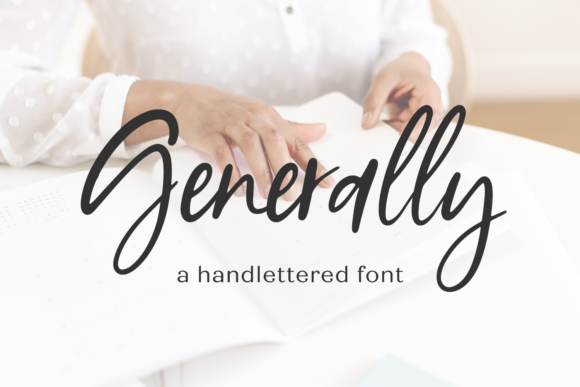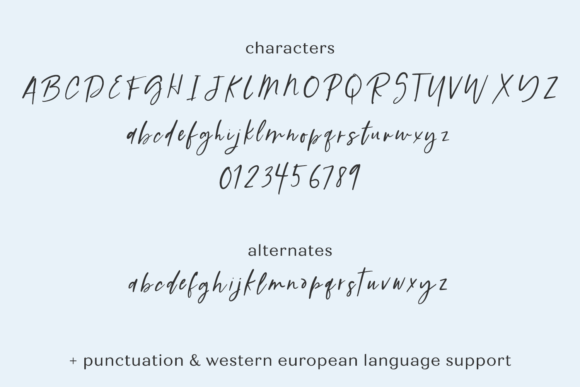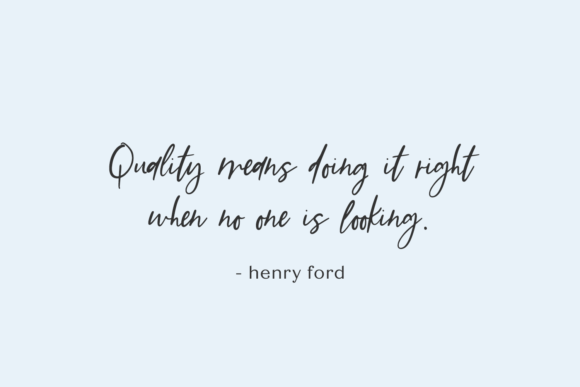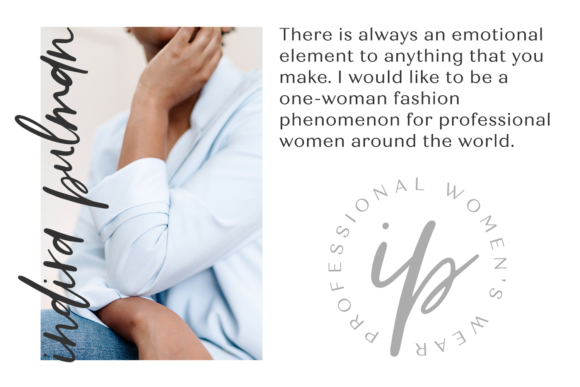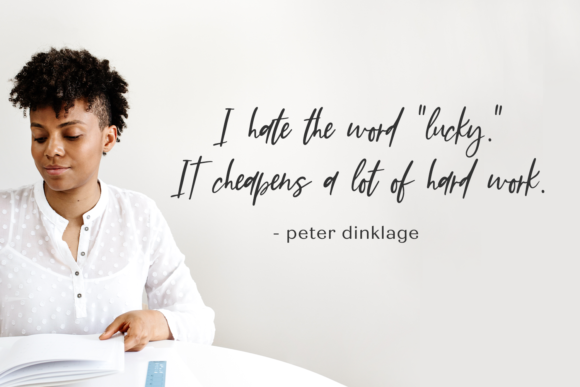
About Generally Script Font
Generally Script is a handwritten signature style font. This chic, stylish font features a messy, casual look like handwriting, making it perfect for a signature style logo!
Generally Script is best for:
– logos + branding, like beauty, cosmetics, and health brands
– website design + website accents – think design blogs, travel blogs, fashion blogs, & more
– clean print design, like magazines + flyers
– header elements that need a handwritten touch
– quote graphics for social media